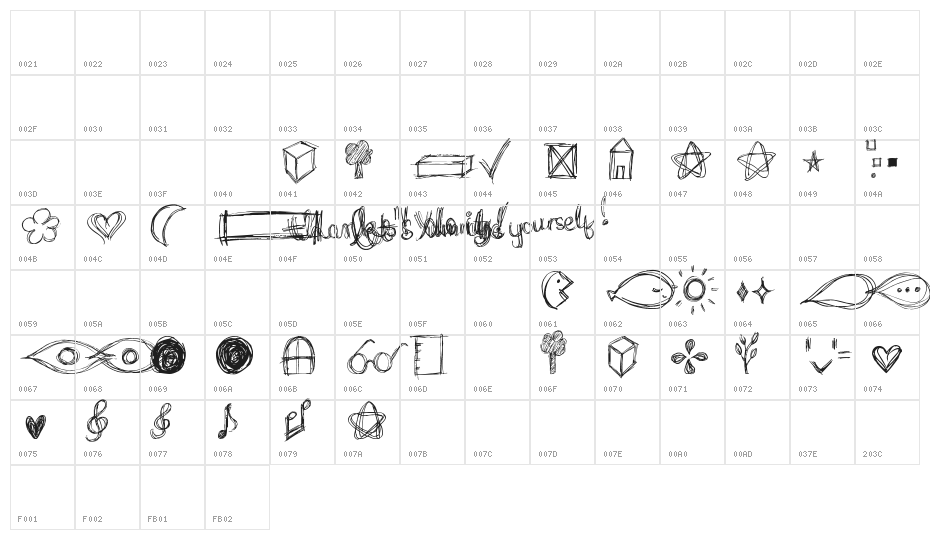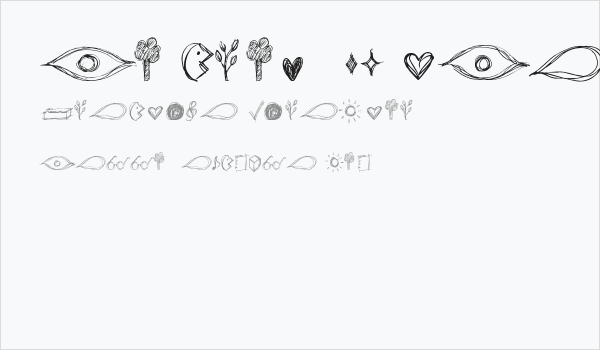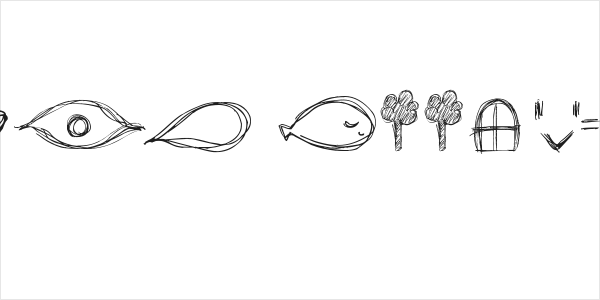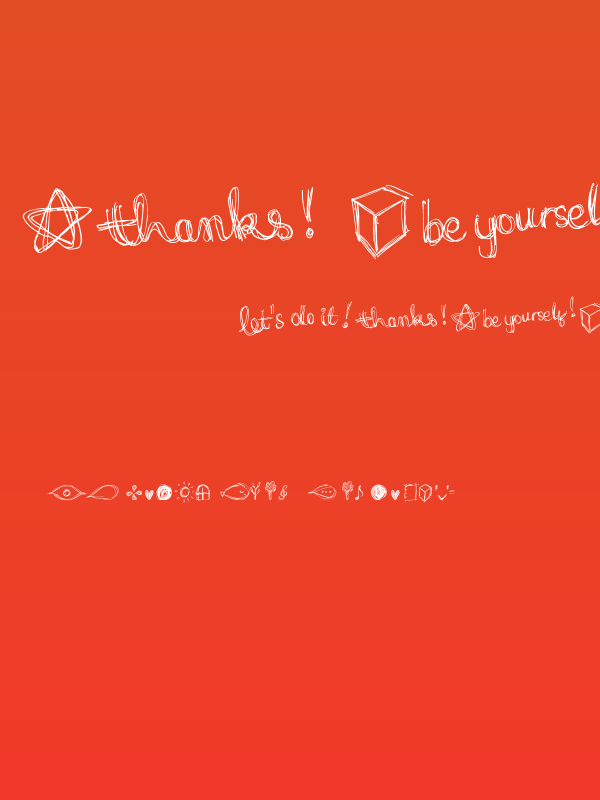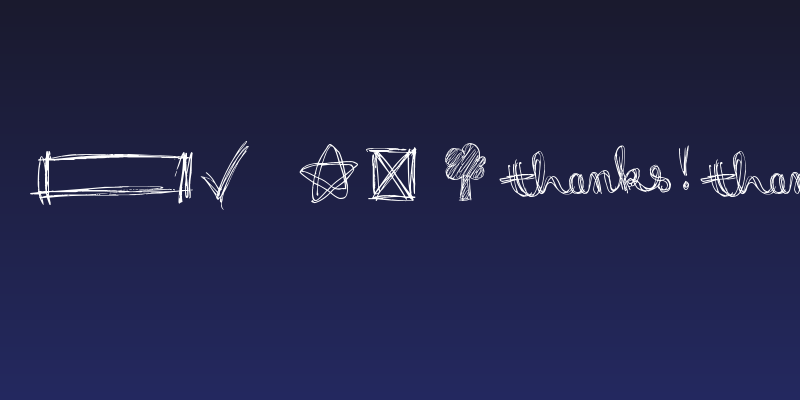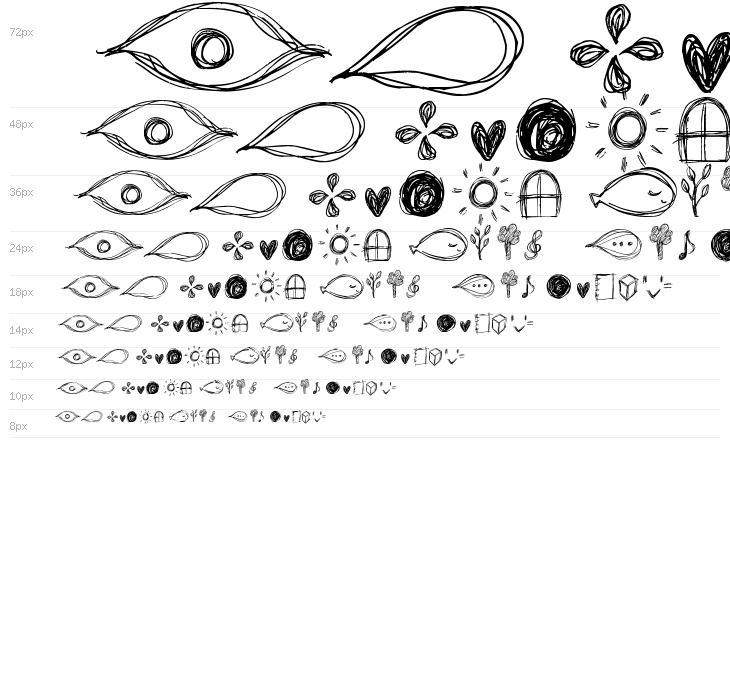
go around the books - symbols Font
| Overall Style | Playful and artistic. |
| Use Case | Decorative text, artistic projects. |
| Proposed Projects | Greeting cards, children's books, creative projects. |